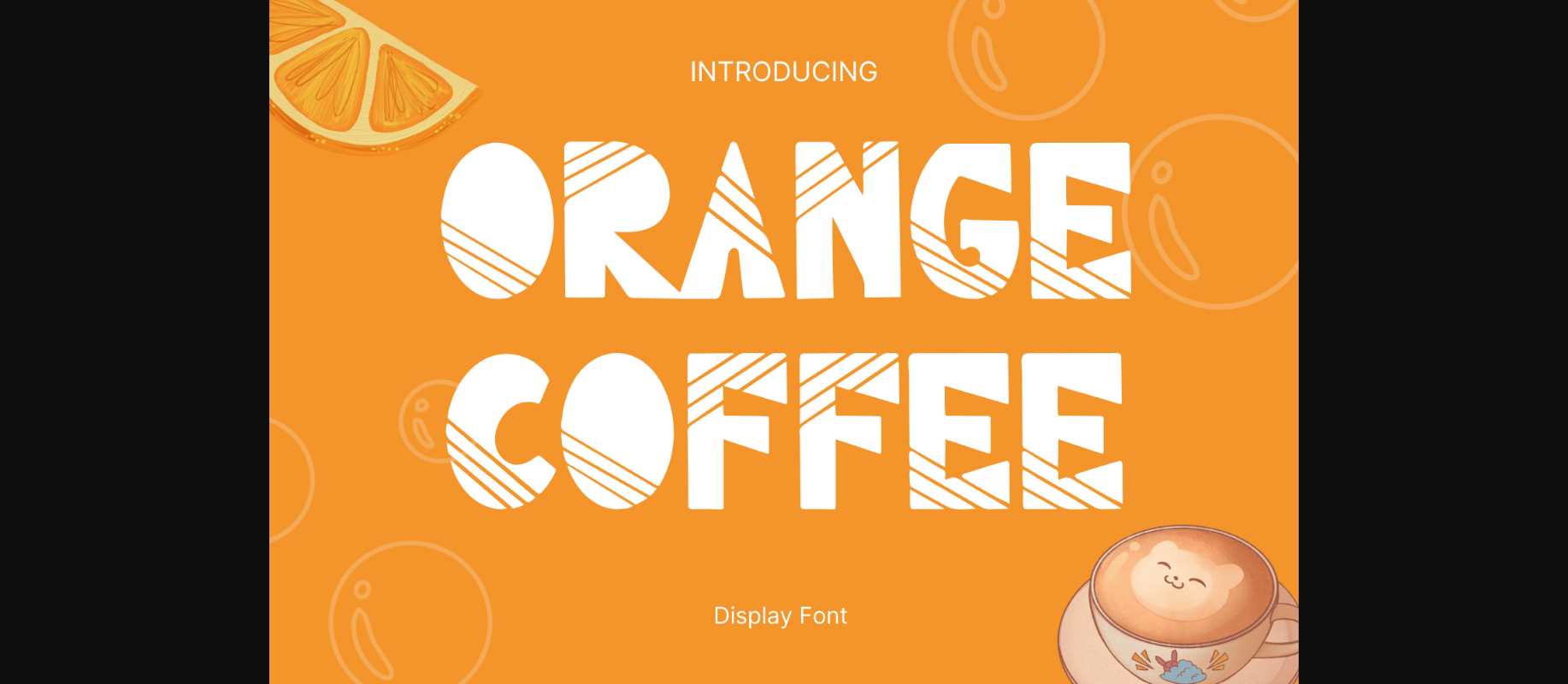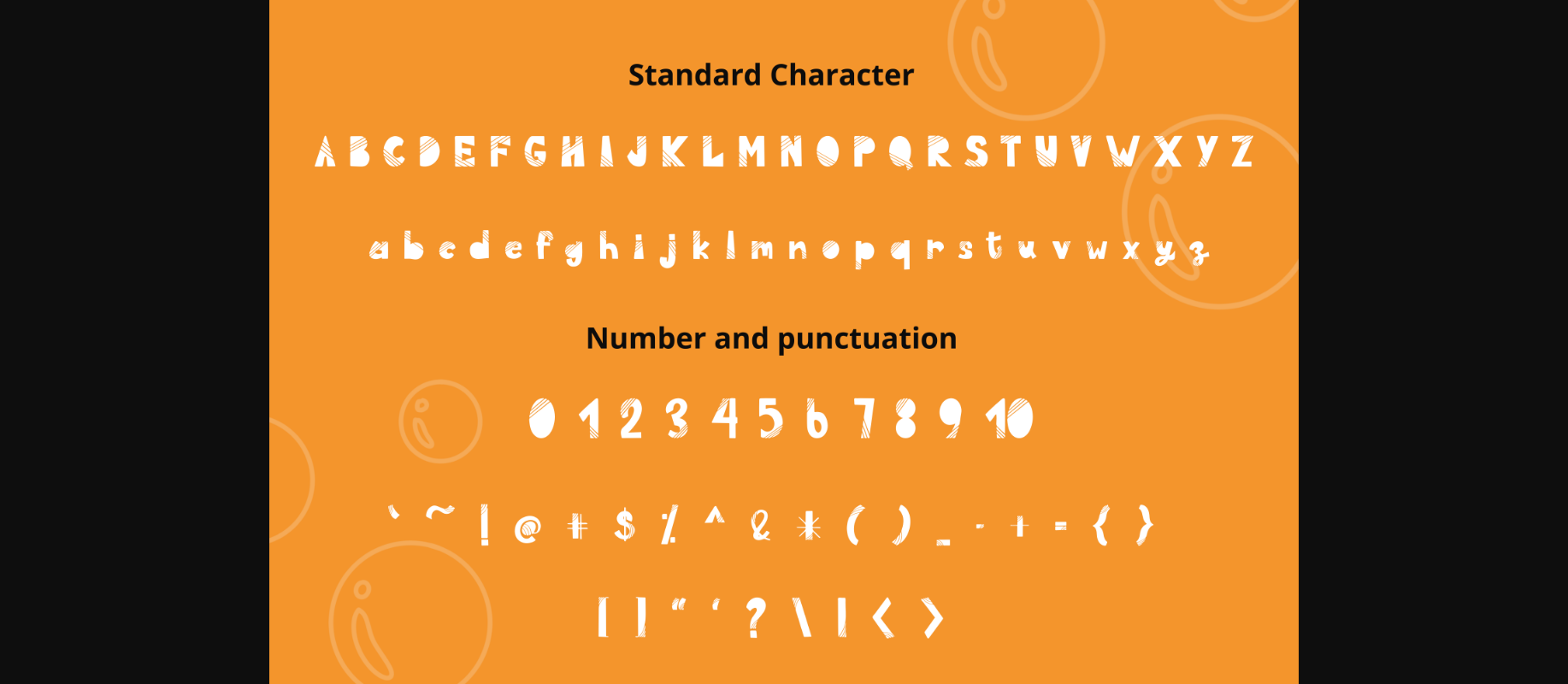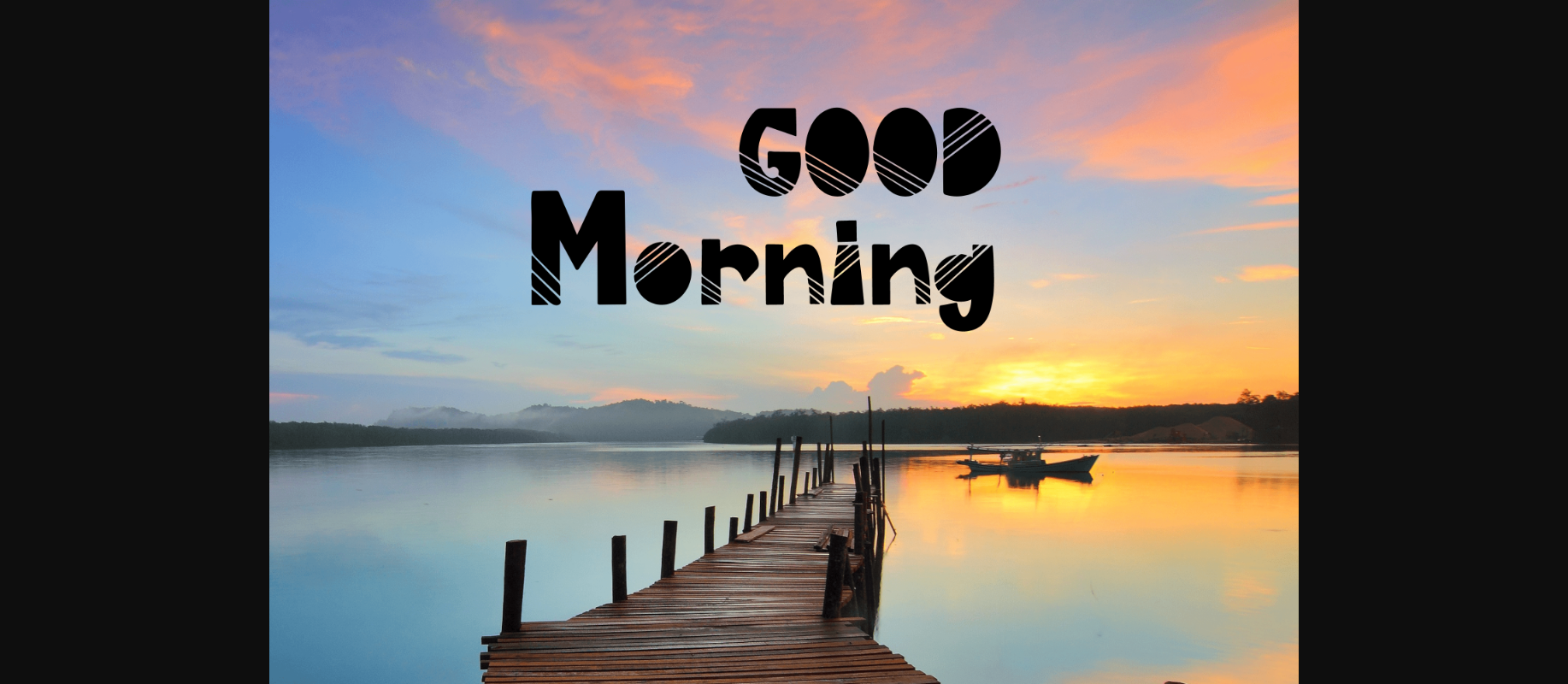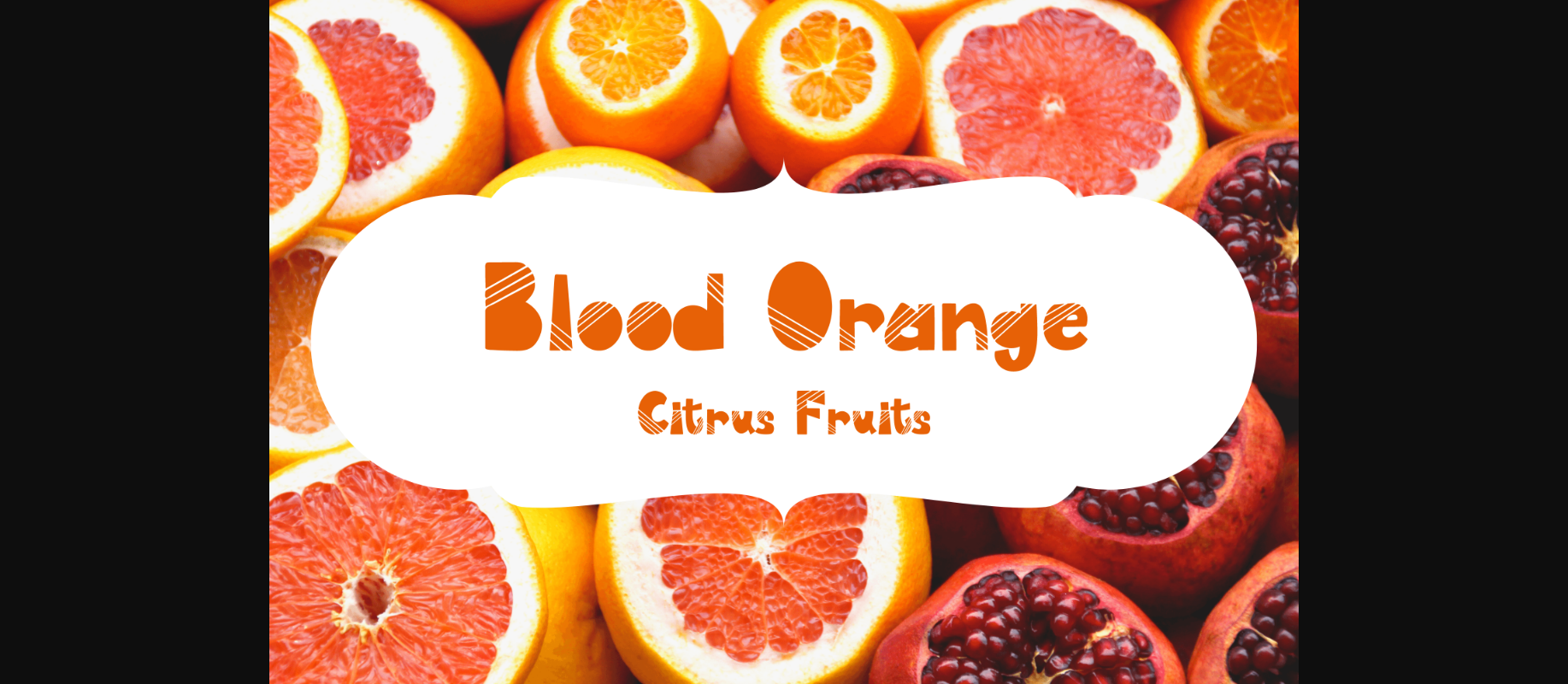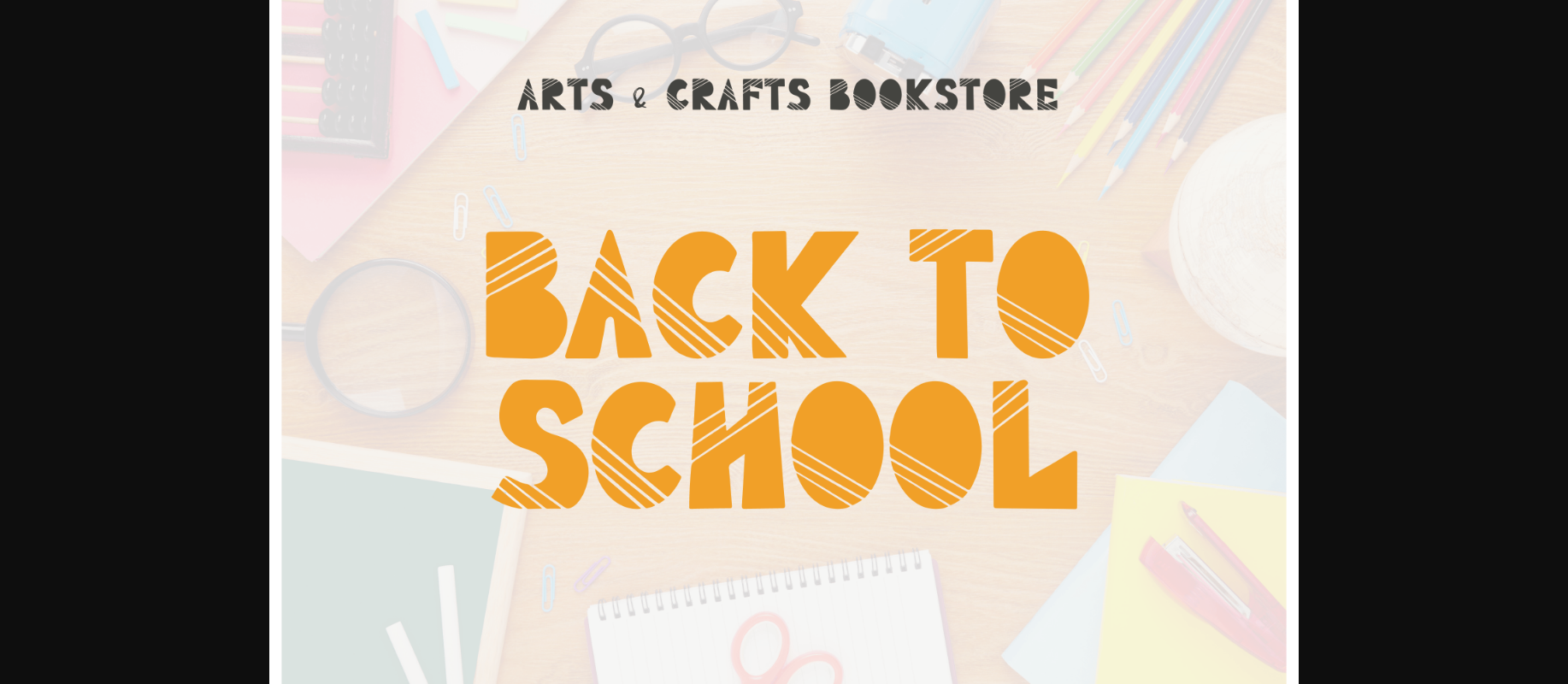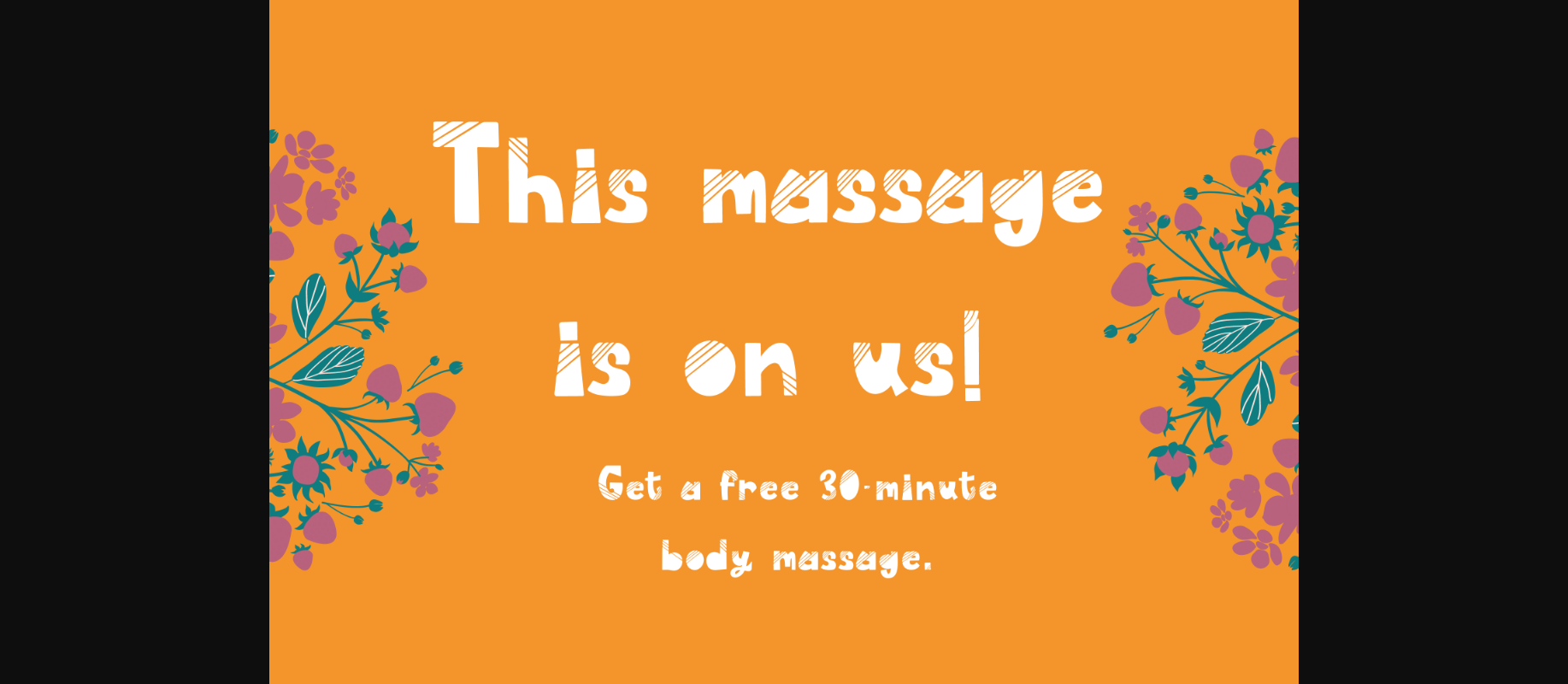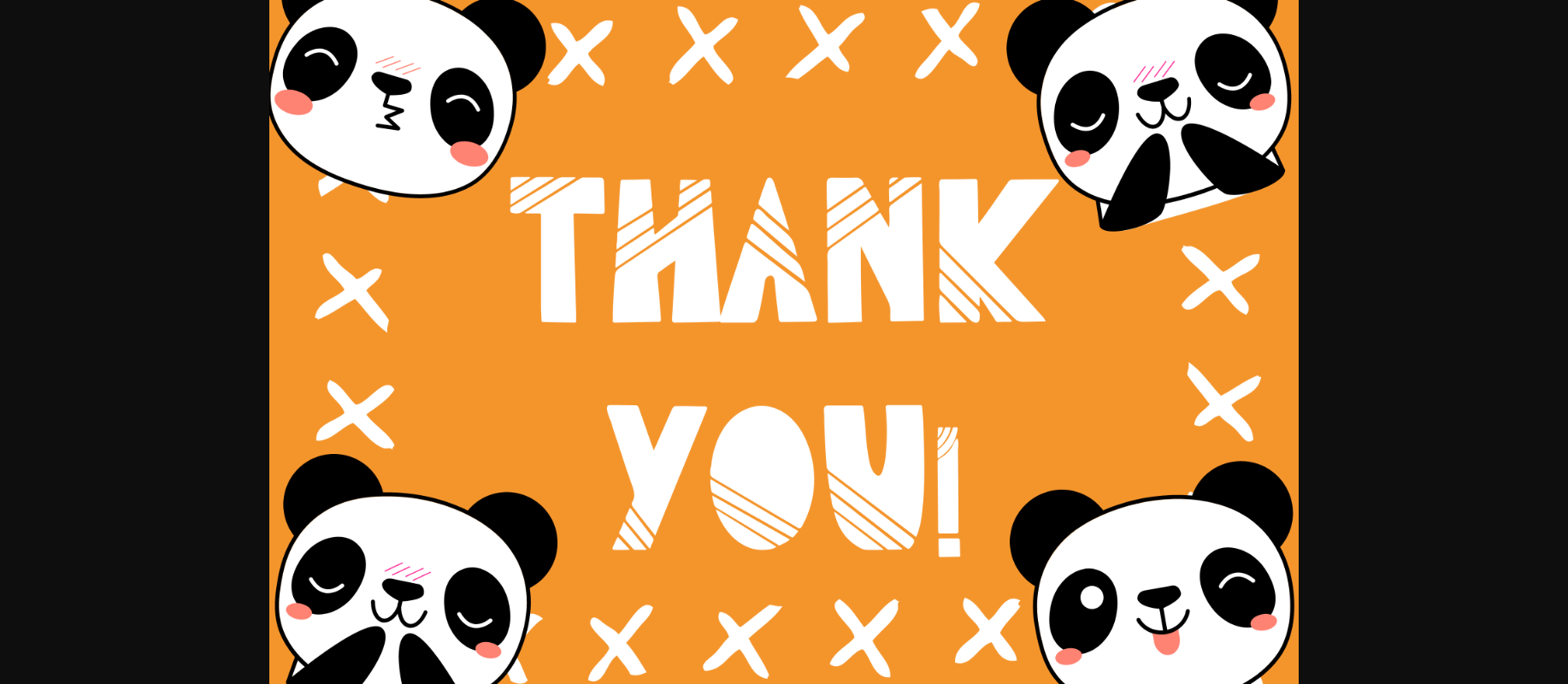
Orange Coffee Font
Orange Coffee is a whimsical and clean decorative font. It can easily be matched to an incredibly large set of projects, so add it to your creative ideas and notice how it makes them stand out!